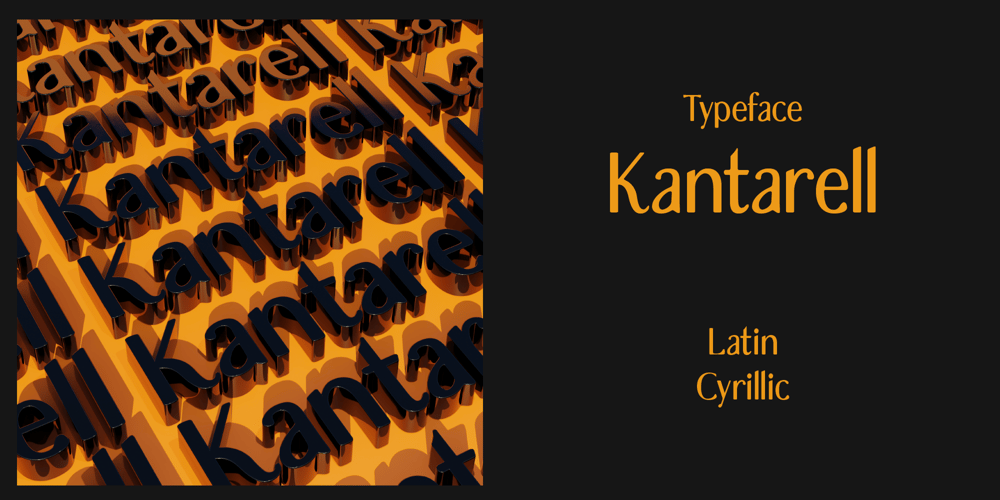
Kantarell Font Family was designed by Cyrill Golikov and published by EchadType. Kantarell contains 1 styles and family package options. Kantarell is a calligraphic sans-serif typeface rooted in the traditions of Roman square capitals. In all-caps Kantarell has a very grotesque look to it, while in small x-height letters sustains it’s ortodox form. The family available in single style and works best in headline and display settings. Typeface supports: Latin characters with diacritical marks; Cyrillic charecters (Ukrainian, Russian); Variety of symbols for use in commerce.